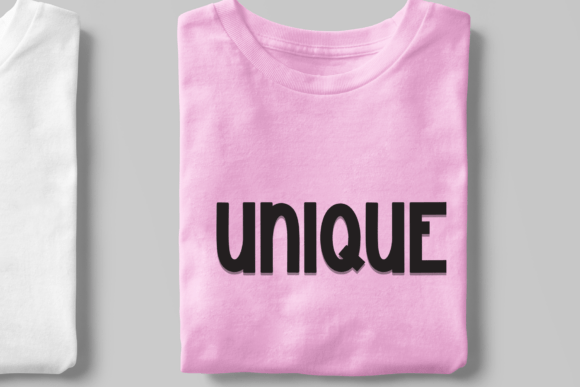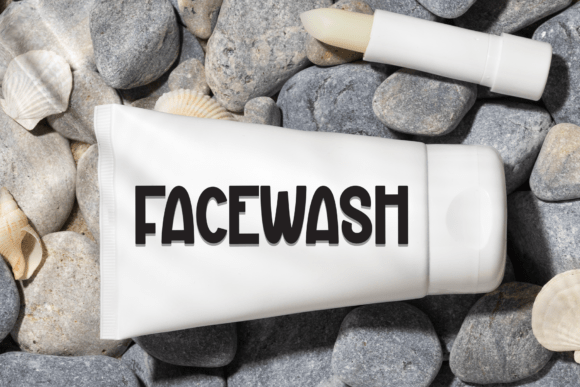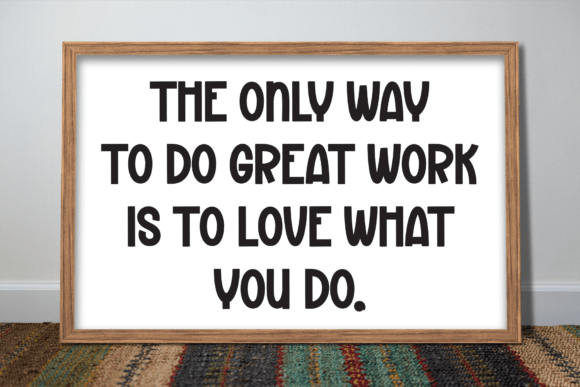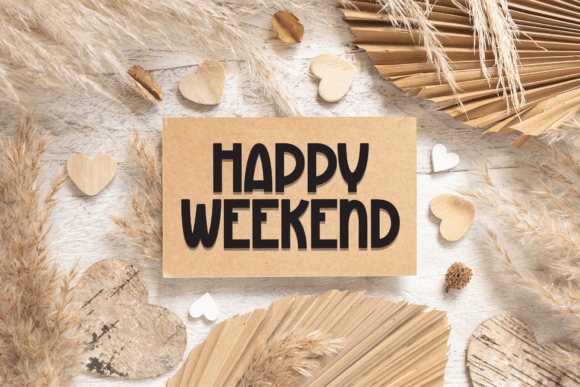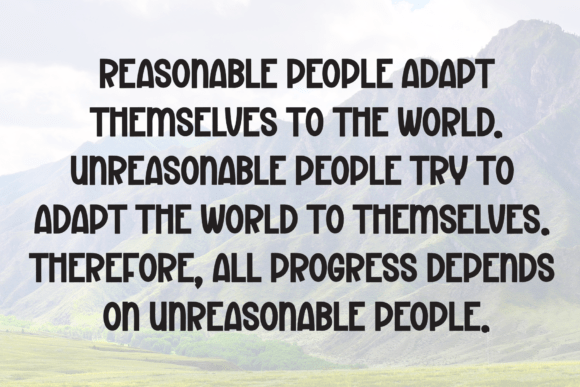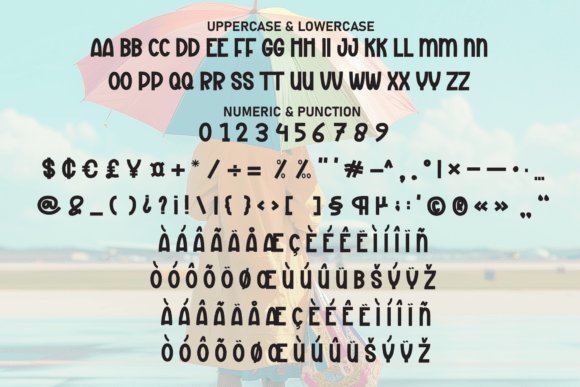
Introduction to Simple Umbrella Font
With its thick strokes, strong presence, and modern flair, this font is ideal for headlines, posters, branding, logos, and any project that needs to be loud and clear.
Whether you’re creating promotional materials or a standout editorial layout, this typeface delivers high impact with effortless style .
Key Features of Simple Umbrella Font
Why Choose Simple Umbrella Font?
Simple Umbrella Font offers exceptional quality and versatility, making it a valuable addition to your design toolkit. Whether you’re creating for personal projects or commercial use, Simple Umbrella Font delivers professional results.